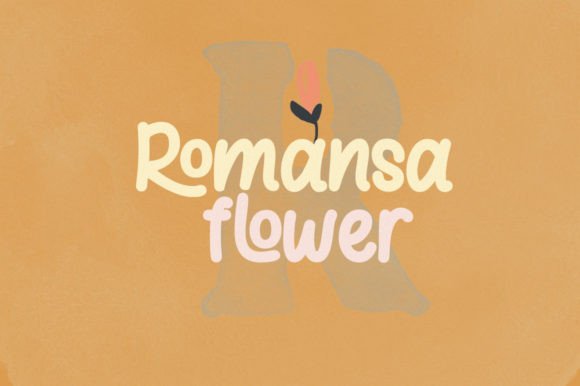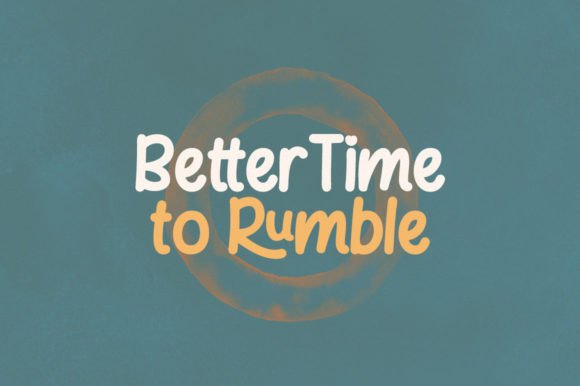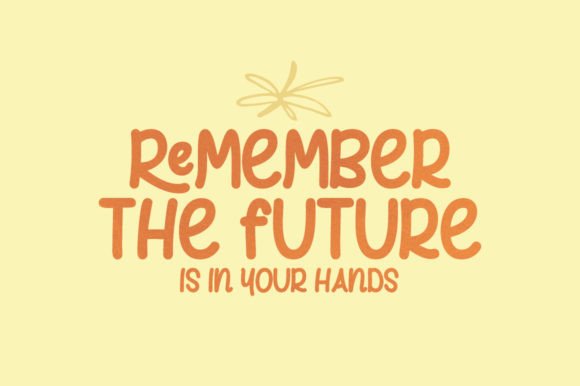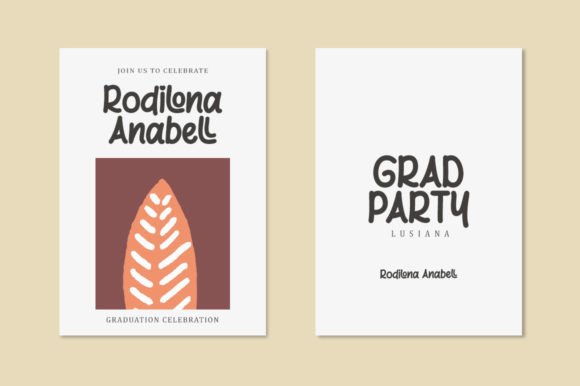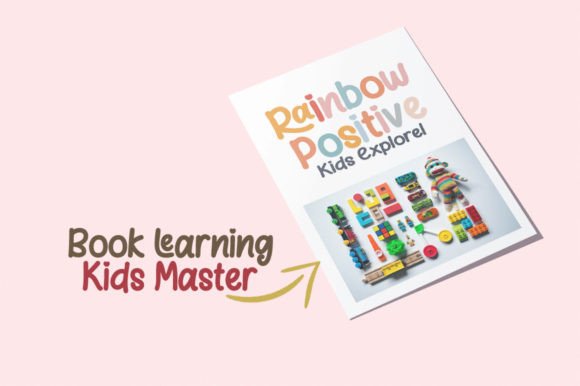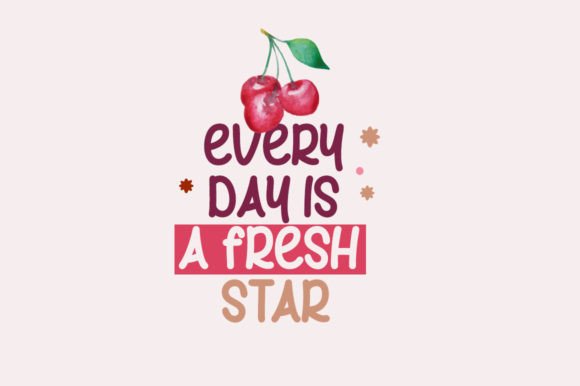
Introduction to Lusiana Font
Lusiana is a lovely and charming handwritten font with a smooth texture built in.
Perfect for standout quotes, funny branding, childrenโs books, quirky greeting cards and so much more .
Key Features of Lusiana Font